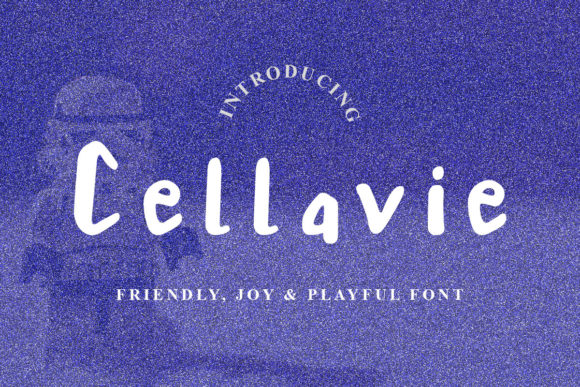
Cellavie Font
Prepare yourself to be captivated by Cellavie Font, a display font with a natural charm that exudes friendliness. Designed by the talented densudesign, Cellavie is not just a font; it's an invitation to let your creativity flourish.
With Cellavie Font, you'll discover a world where your designs come to life with a playful vibe. Its elegant curves dance across the page, creating a captivating visual experience that will leave your audience enthralled. Perfect for logos, wedding designs, social media posts, advertisements, product packaging, product designs, labels, photography, watermarks, and more, Cellavie Font is the versatile tool you need to make your projects stand out.
Imagine the impact of a logo that radiates warmth and approachability, thanks to Cellavie Font's friendly demeanor. Envision wedding invitations that exude timeless elegance, their words dancing harmoniously on the page. Picture social media posts that pop with personality, grabbing attention and sparking engagement.
Cellavie Font is more than just a collection of characters; it's a gateway to a world of creative possibilities. Its natural feel invites you to connect with your audience on a deeper level, creating designs that resonate with their emotions and leave a lasting impression.
So, dive into the world of Cellavie Font and unlock your creativity. Let its playful spirit ignite your imagination and craft designs that captivate and inspire. Don't just take our word for it; experience the magic of Cellavie Font today and see how it transforms your projects into works of art.